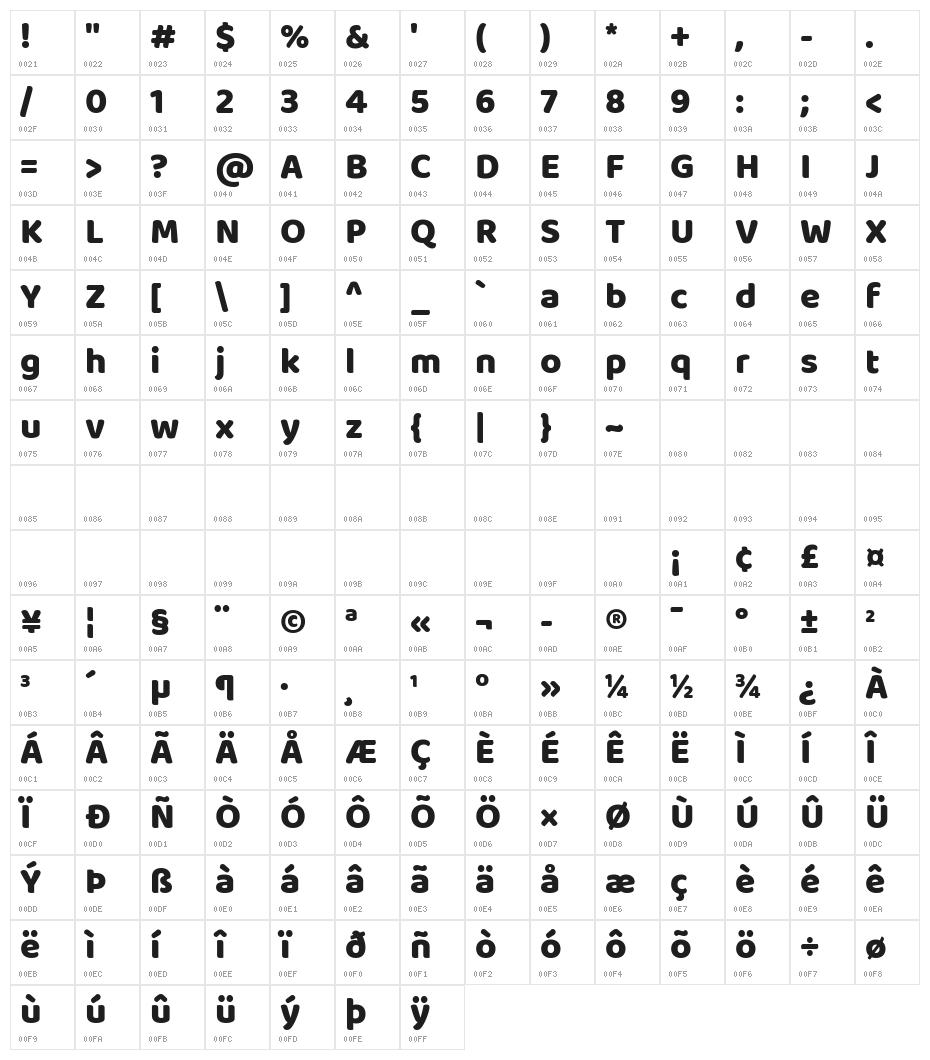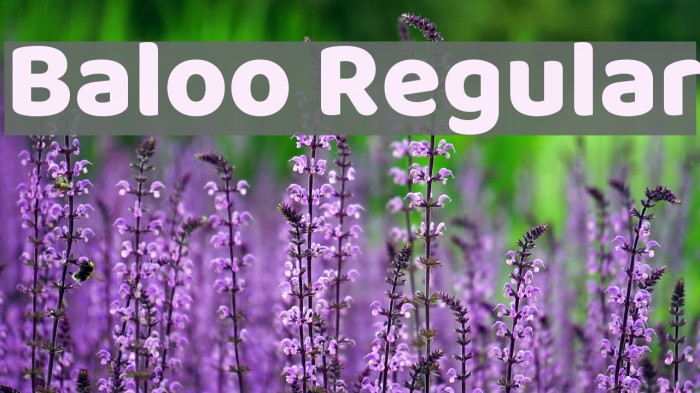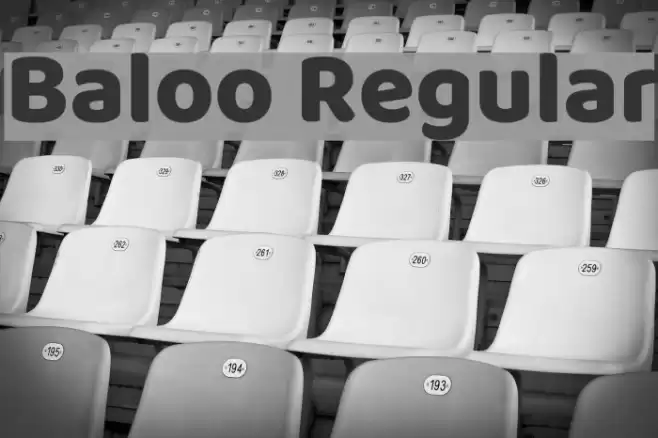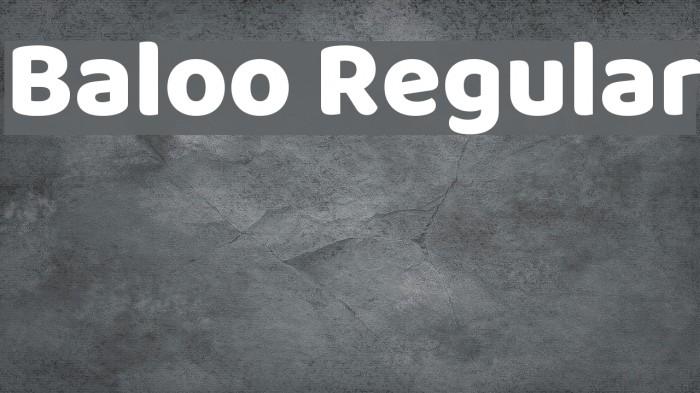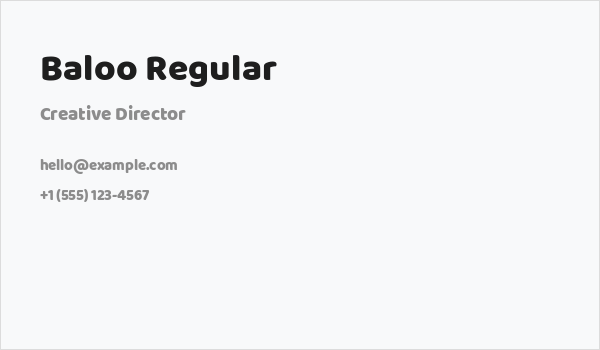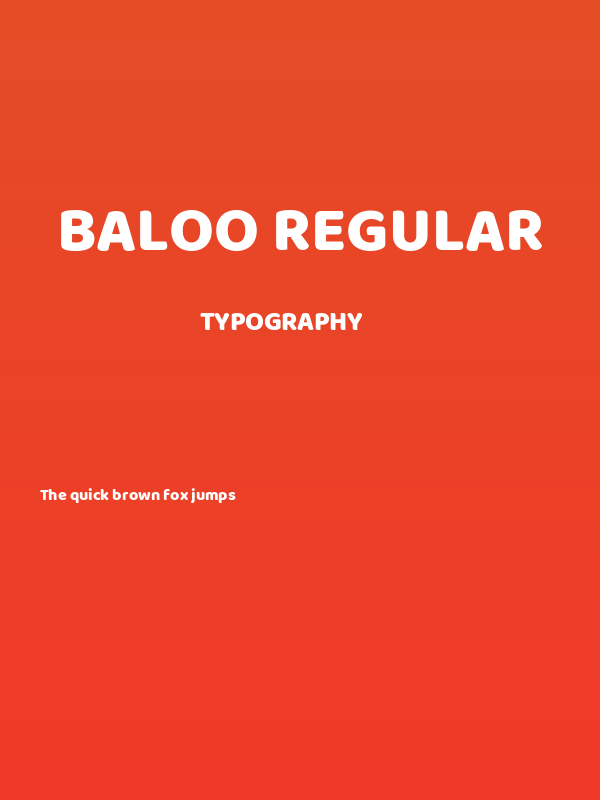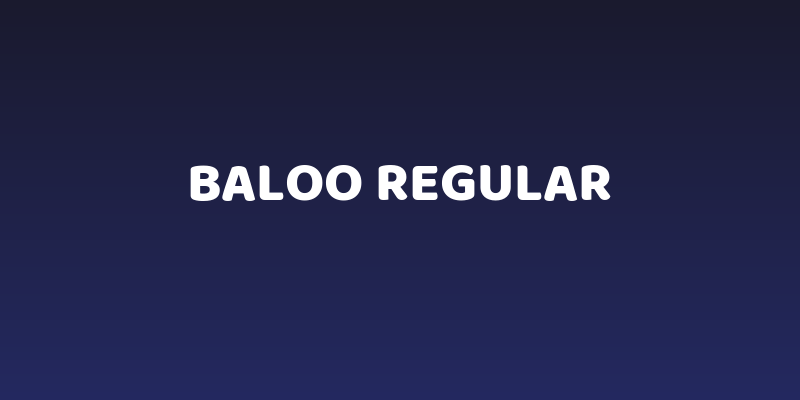
Baloo Regular Font
Baloo Regular Description
This font features a playful and rounded design, characterized by its bold and friendly appearance. The letters are thick and slightly condensed, with smooth curves and a uniform stroke width that gives it a modern and approachable feel. The uppercase and lowercase letters maintain a consistent style, making it highly legible and versatile. The numerals and special characters follow the same design principles, ensuring a cohesive look across all text elements. Its simplicity and warmth make it suitable for a variety of applications, from children's books to branding materials.
| Proposed Projects | Ideal for children's books, playful branding, posters, and social media graphics. |